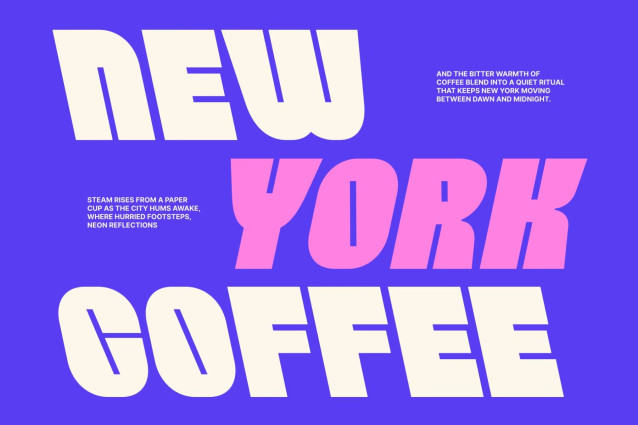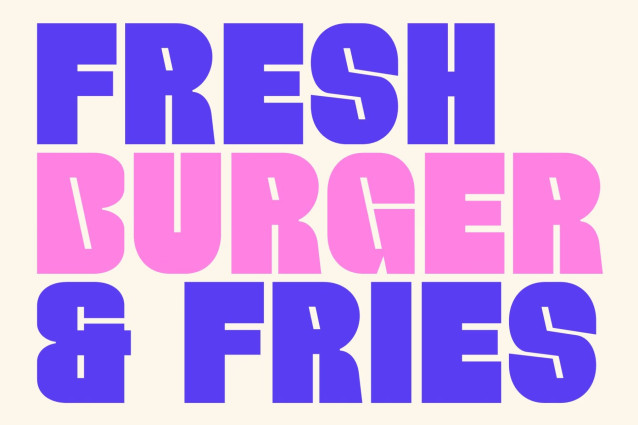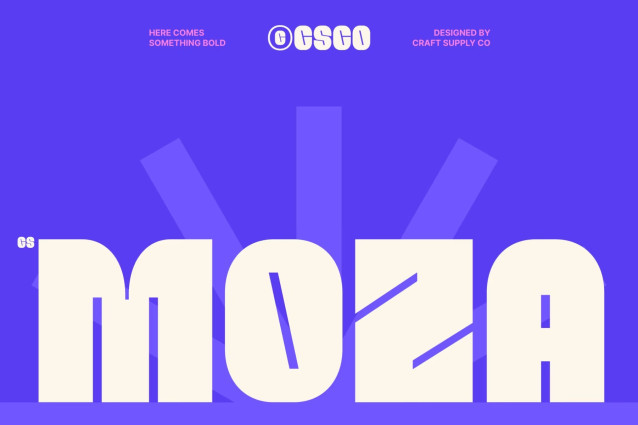
CS Moza – Bold Sans Serif Font
CS Moza – Bold Display Sans Serif Font: Where Maximum Impact Meets Modern Confidence
Strong Forms Designed to Command Attention
This is a bold display sans serif font created to make an immediate and lasting impression. Its powerful letterforms and commanding proportions are designed for maximum visibility, ensuring every word stands out with confidence and clarity. Built for impact, this typeface transforms text into a bold visual statement that captures attention from the very first glance.
Modern Simplicity with Unmistakable Strength
Featuring clean lines and a solid structure, this font combines contemporary simplicity with an assertive personality. Its bold construction delivers a strong and memorable appearance while maintaining excellent readability, making it highly effective across a wide range of display applications.
Confident Character for Bold Visual Communication
This font balances functionality and expression, offering a typographic identity that feels modern, energetic, and professional. Whether used in large-scale headlines or standout branding elements, its strong character ensures designs remain impactful and visually engaging.